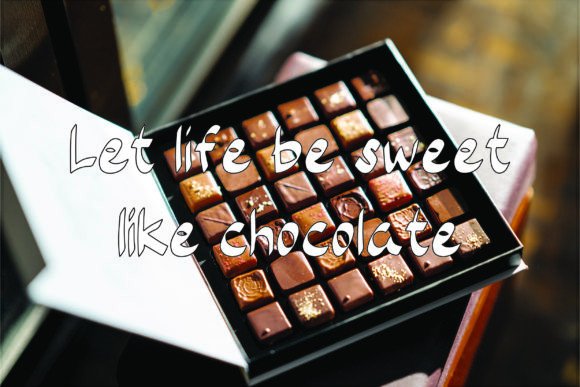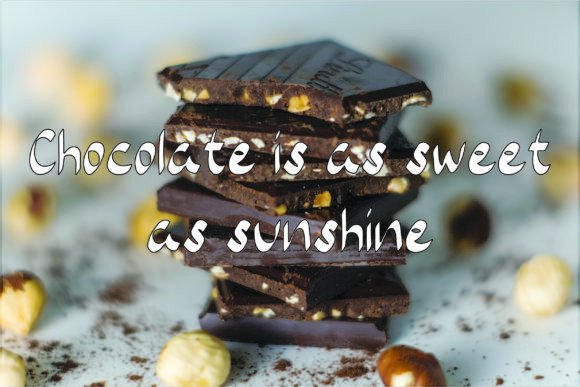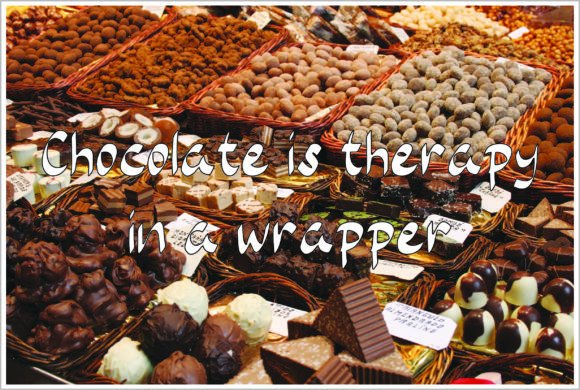
Introducing Choco Font: The Sweet and Friendly Handwritten Font for Designers and Crafters
Are you a designer or crafter looking for a unique and friendly font to add a personal touch to your creations? Look no further than Choco Font, a sweet and handwritten font that’s perfect for large design collections. With its natural and distinctive style, Choco Font is sure to inspire your creativity and take your designs to the next level.
The Charm of Choco Font
Choco Font is a one-of-a-kind handwritten font that’s designed to bring a smile to your face. Its sweet and friendly style makes it perfect for a wide range of design projects, from invitations and greeting cards to posters and social media graphics. Whether you’re a professional designer or a crafty DIY enthusiast, Choco Font is sure to become your new go-to font.
What Makes Choco Font Special?
So, what sets Choco Font apart from other fonts? Here are just a few things that make it special:
- Natural and Unique Style: Choco Font has a distinctive, handwritten style that’s both natural and unique. It’s perfect for designers and crafters who want to add a personal touch to their creations.
- Highly Versatile: Choco Font is incredibly versatile, making it perfect for a wide range of design projects. Whether you’re creating a formal invitation or a playful social media graphic, Choco Font is sure to shine.
- Easy to Read: Despite its unique style, Choco Font is incredibly easy to read. This makes it perfect for designs that require a lot of text, such as posters, flyers, and brochures.
- Perfect for Large Design Collections: Choco Font is designed to be used in large design collections, making it perfect for designers and crafters who like to create a lot of different designs.
How to Use Choco Font in Your Designs
Using Choco Font in your designs is easy. Here are a few tips to get you started:
- Pair it with Other Fonts: Choco Font pairs perfectly with other fonts, making it easy to create stunning contrast in your designs. Try pairing it with a bold, sans-serif font for a playful look.
- Use it for Headings and Titles: Choco Font is perfect for headings and titles, where its unique style can really shine. Try using it to create eye-catching headlines and titles.
- Add it to Your Digital Toolkit: If you’re a digital designer, consider adding Choco Font to your digital toolkit. It’s perfect for creating social media graphics, blog posts, and other digital designs.
Choco Font for Crafters
Choco Font isn’t just for designers – it’s also perfect for crafters who love to create handmade projects. Here are a few ways you can use Choco Font in your crafting projects:
- Handmade Cards and Invitations: Choco Font is perfect for creating handmade cards and invitations. Try using it to add a personal touch to your creations.
- Journaling and Scrapbooking: Choco Font is also great for journaling and scrapbooking. Try using it to add captions and notes to your pages.
- DIY Signs and Posters: Choco Font is perfect for creating DIY signs and posters. Try using it to create eye-catching titles and headings.
Choco Font is a sweet and friendly handwritten font that’s perfect for designers and crafters. Its natural and unique style makes it a great fit for large design collections, and its versatility ensures that it can be used in a wide range of design projects. Whether you’re a professional designer or a crafty DIY enthusiast, Choco Font is sure to inspire your creativity and take your designs to the next level. So why wait? Download Choco Font today and start creating your own stunning designs!